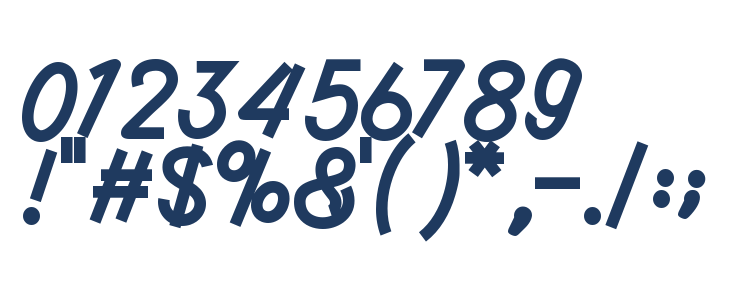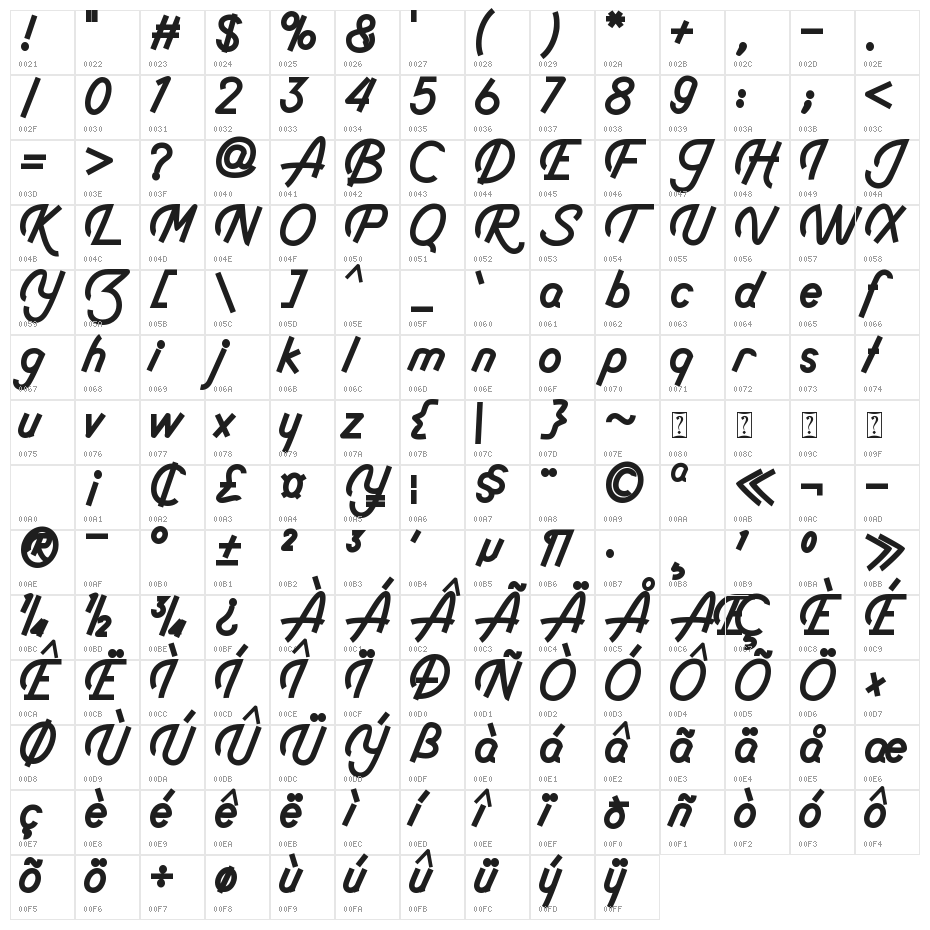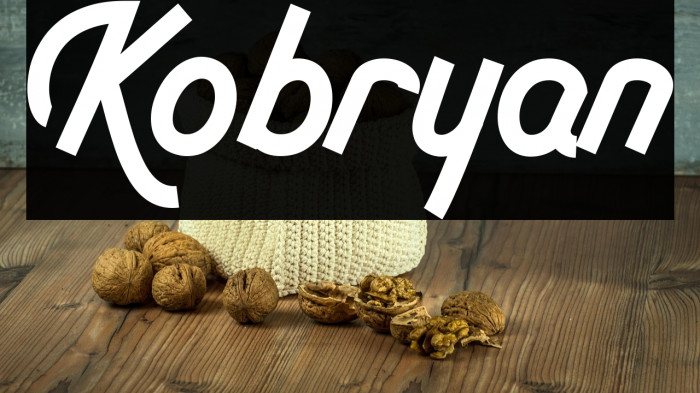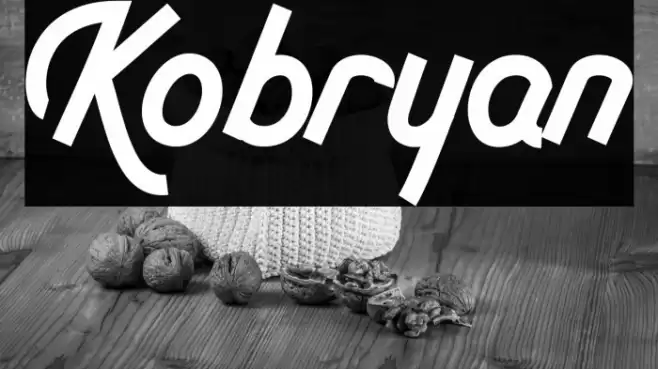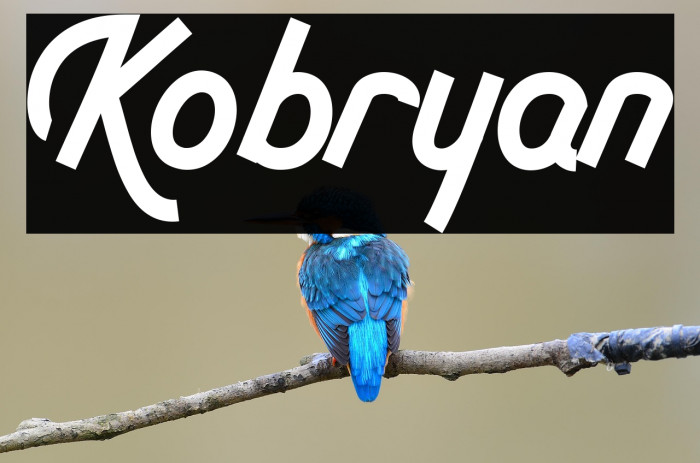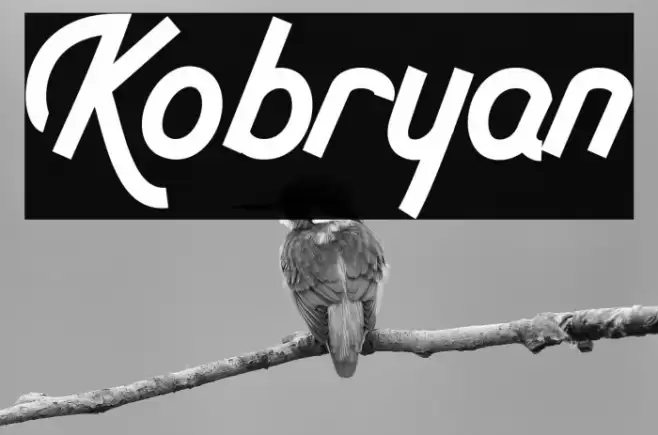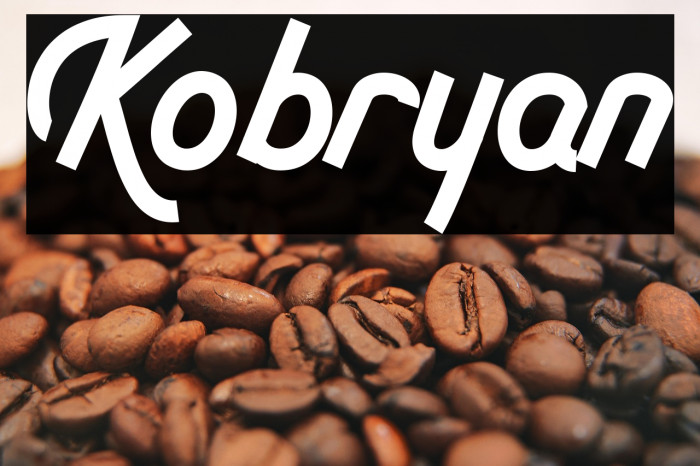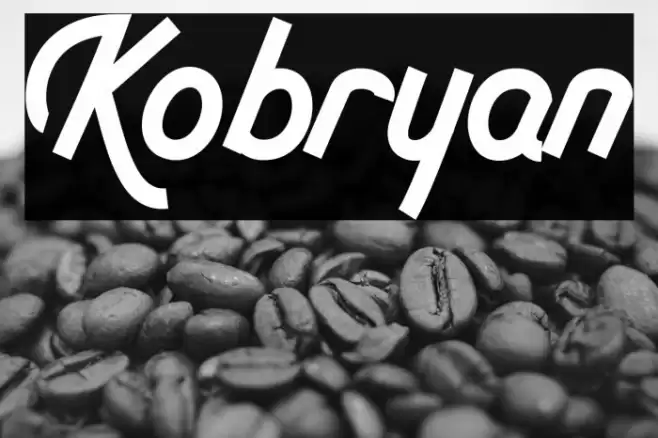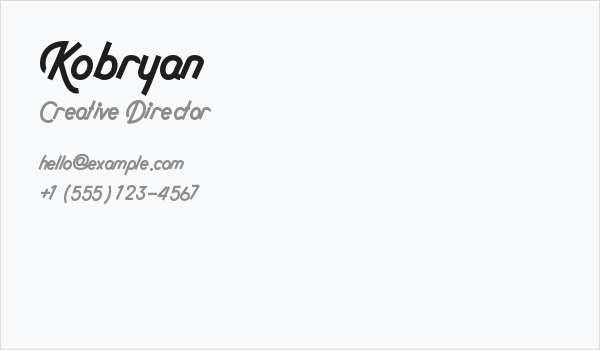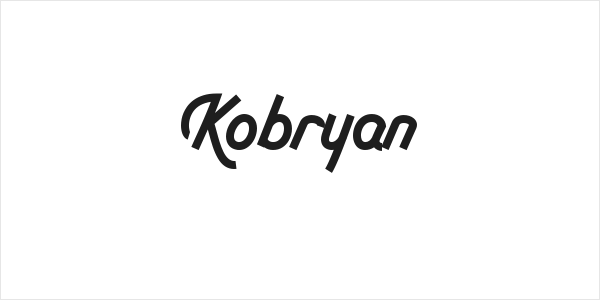
Kobryan Font
Kobryan Description
This font features a bold and dynamic script style with a slight slant, giving it a sense of motion and energy. The uppercase letters are elegantly curved with consistent stroke widths, while the lowercase letters maintain a playful yet sophisticated appearance. The numerals are clear and bold, ensuring readability. Special characters are well-integrated, maintaining the overall aesthetic. This font is ideal for projects that require a touch of elegance and flair, such as branding, invitations, or headlines.
| Proposed Projects | Ideal for branding, invitations, headlines, and any project needing a touch of elegance. |